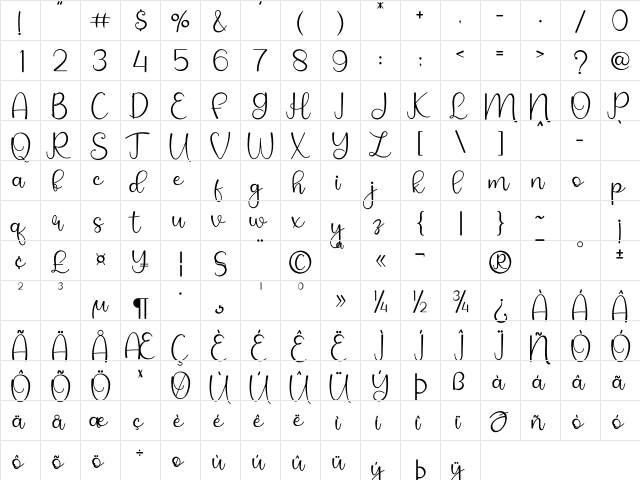
Soffnia Regular
Regular · Airotype Design Rofiq Soelta ·
Foundry Airotype Design
FoundryAirotype Design
DesignerRofiq Soelta
Design Context for Soffnia Typeface
Soffnia is a composed and adaptable typeface that performs quietly and consistently across a wide range of design contexts.